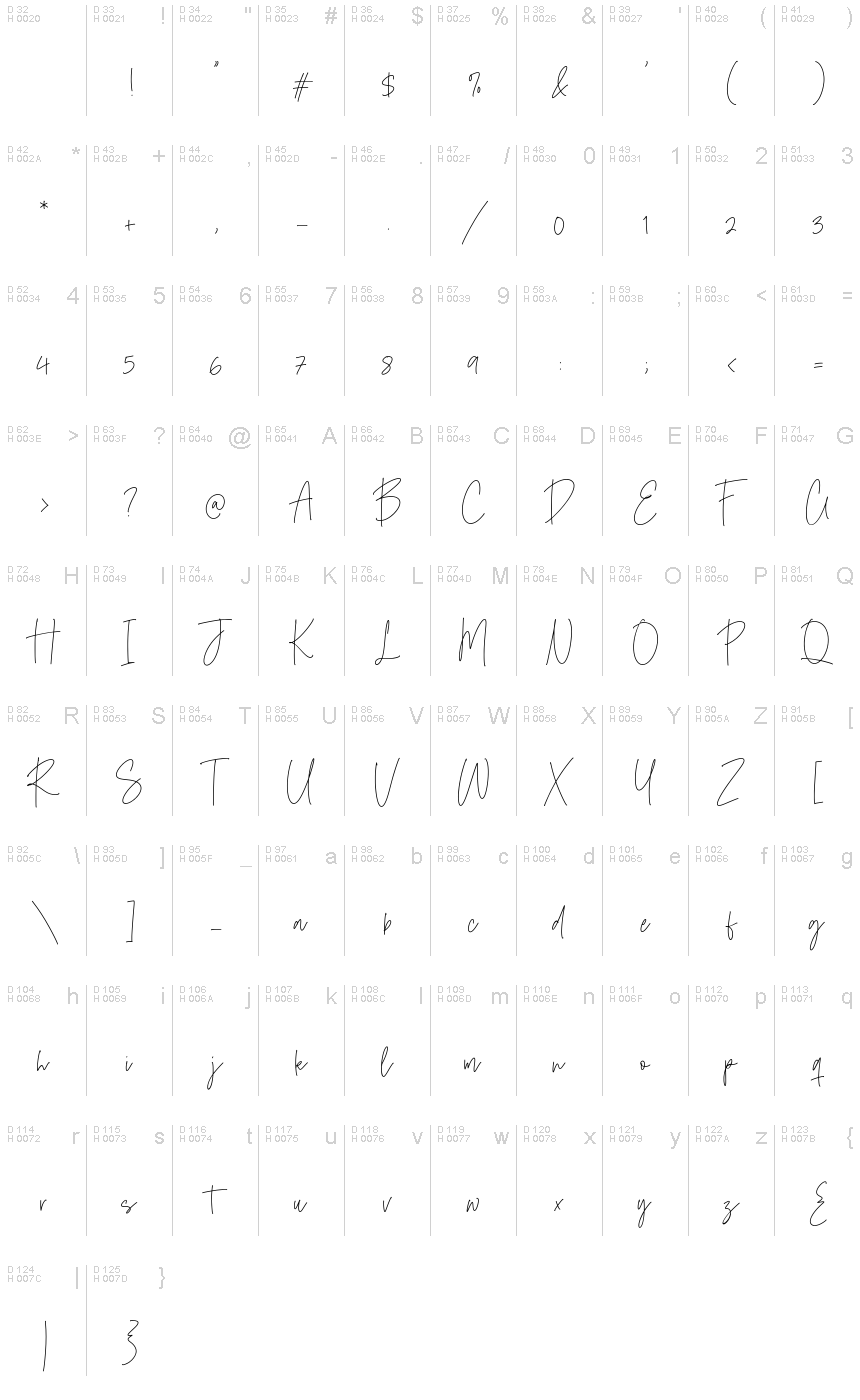
Midnight Wonders
Midnight Wonders, a captivating handwritten font designed by the talented team at Letterative Studio, exudes a sense of effortless elegance and personal charm. This light, signature-style typeface captivates with its flowing strokes and organic rhythms, creating a warm and inviting aesthetic that evokes a sense of whimsy and sophistication. The seamless fluidity of the letterforms, combined with the delicate touch of the light weight, lends an air of graceful sophistication to any text it graces.
Midnight Wonders' versatility shines through, making it a versatile choice for a wide range of design applications. From bespoke wedding stationery and elegant branding to captivating social media headers and charming product packaging, this font effortlessly elevates any project with its timeless, handcrafted appeal.